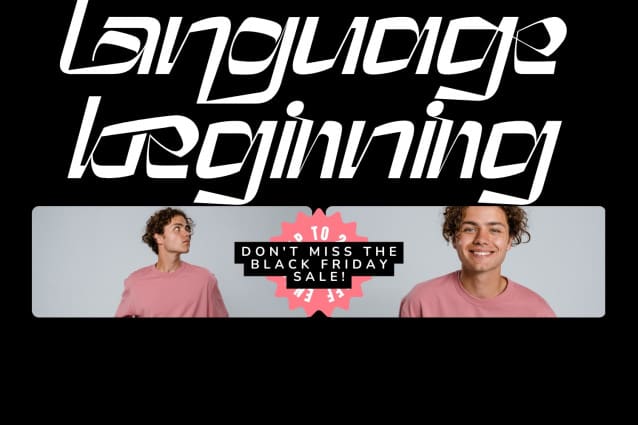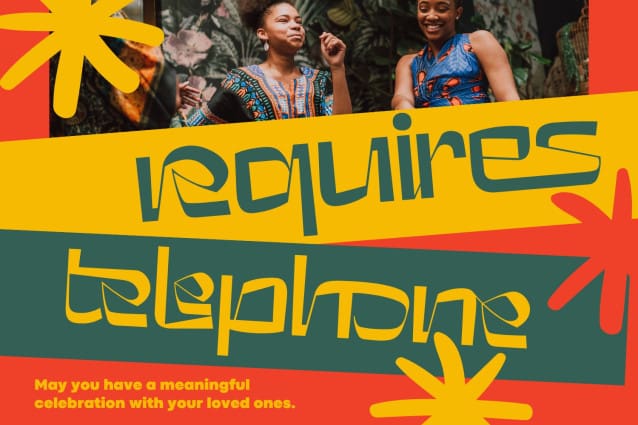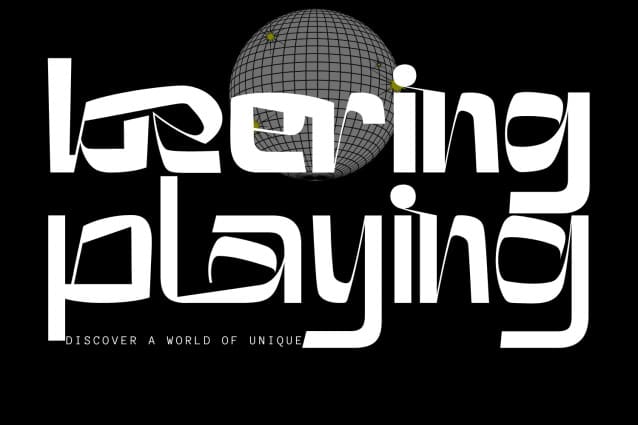
Beering Playing Font
Beering Playing Font, this font has unique and bold letterform, make it great to be used for modern and minimalistic design theme. A large selection of interwoven Opentype ligatures, means ample selection and variety in your finished look. This is primarily a display font (but can also be used for body copy) that we recommend using in the following types of work; magazines (titles and layouts), logos and branding, invitations, quotes, blog headers, posters, and advertising.
Beering Playing was built with OpenType features and includes 100 ligatures, alternate, numbers, punctuation, and it also supports other languages.
AC AD AL AN AR AS AT AU AV BE CA CE CH CO CT DE DI EA EC ED EE EL EM EN EP ER ES ET FE FO FR GE HA HE HI HO IE IC IL IN IO IR IS IT JU KE LA LE LI LL LO LY MA ME MI NC ND NE NG NO NT NS OC OF OM ON OO OP OR OT OU OW PA PR RA RD RE RI RO RS RT SE SH SI SO SS ST TA TE TH TI TO TR TT UM UN UR VE WI WO